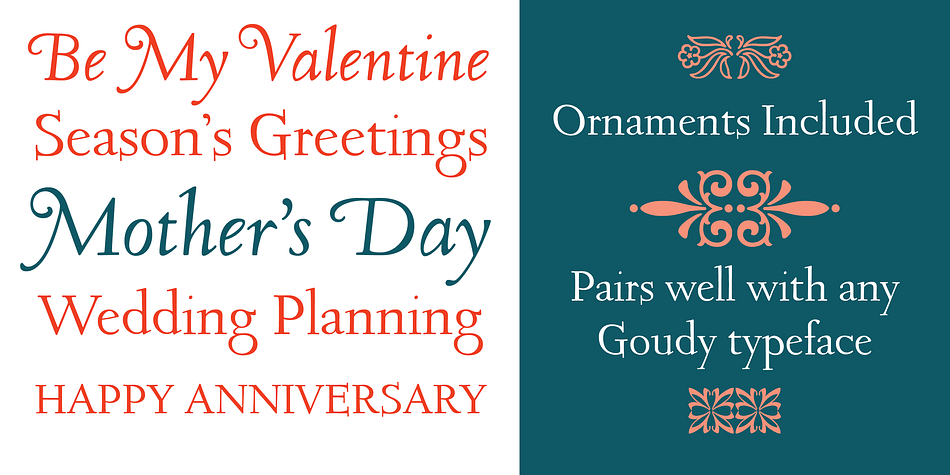
Designed by Frederic W. Goudy and Steve Matteson, Companion Old Style is a serif font family. This typeface has two styles and was published by Matteson Typographics.
A unique design accurately revived by Steve Matteson in 2021. Frederic Goudy designed Companion Old Style for Women’s Home Companion in 1928. In his own words: “I believe the new letter I showed him, both in roman and italic, is one of the most distinctive types I have ever made. It incorporates features which deliberately violate tradition as to stress and curves, but which are so handled that attention is not specifically drawn to the innovations introduced.”
Companion Old Style exudes the style of pre-World War 2 Americana. The unique characteristics are wonderful for greeting cards, wedding announcements and holiday invitations. Companion’s nostalgic letterforms are light hearted and quirky yet highly readable.